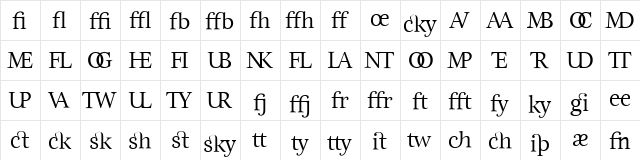
EstaLigatures Regular
Design Context for EstaLigatures Typeface
EstaLigatures takes a measured approach to typography — its balanced proportions and neutral character make it a reliable workhorse for both digital and print work.
Pro Tip: Use EstaLigatures in both headline and body roles to test its range before committing to a single application.